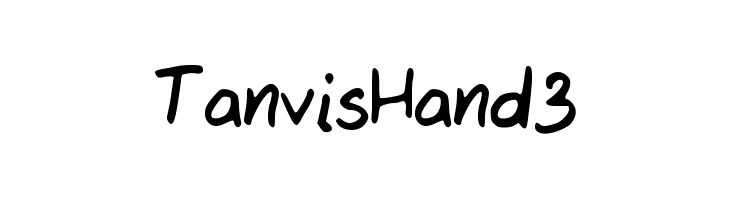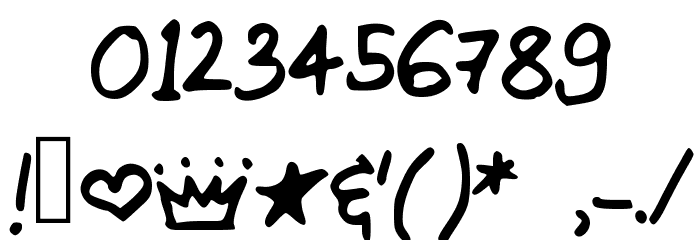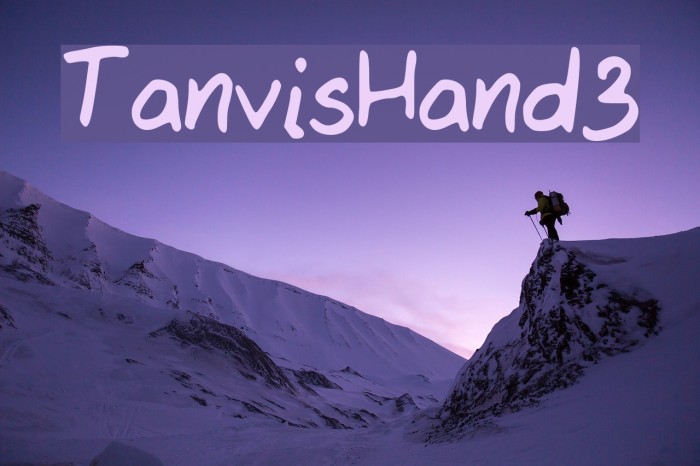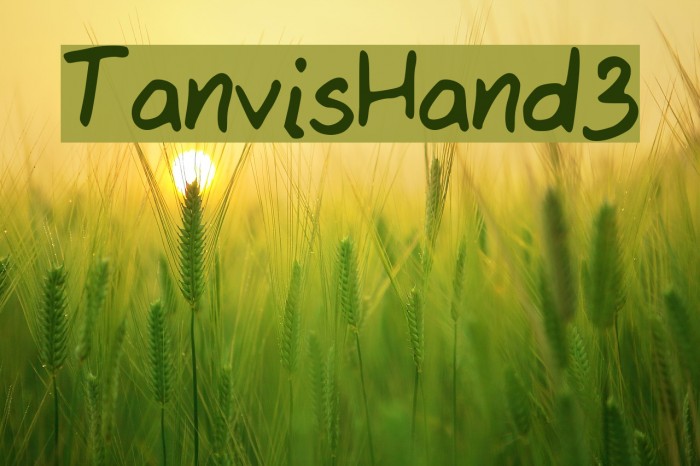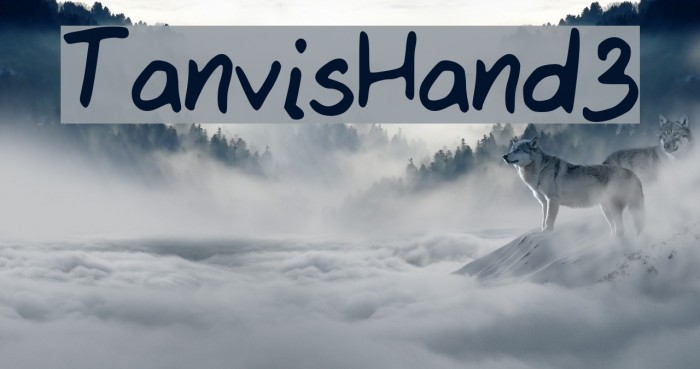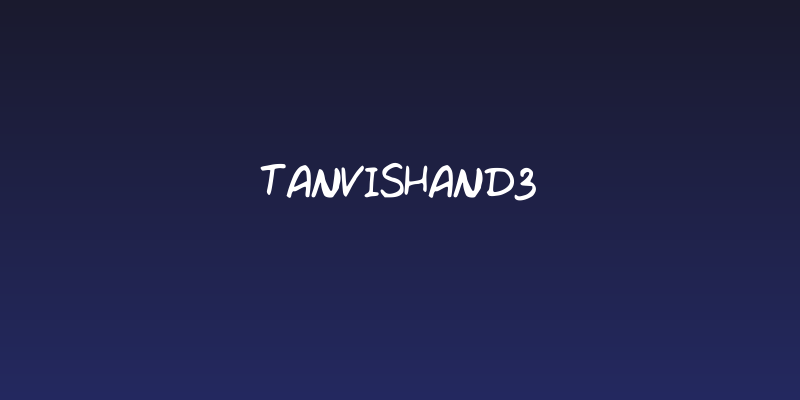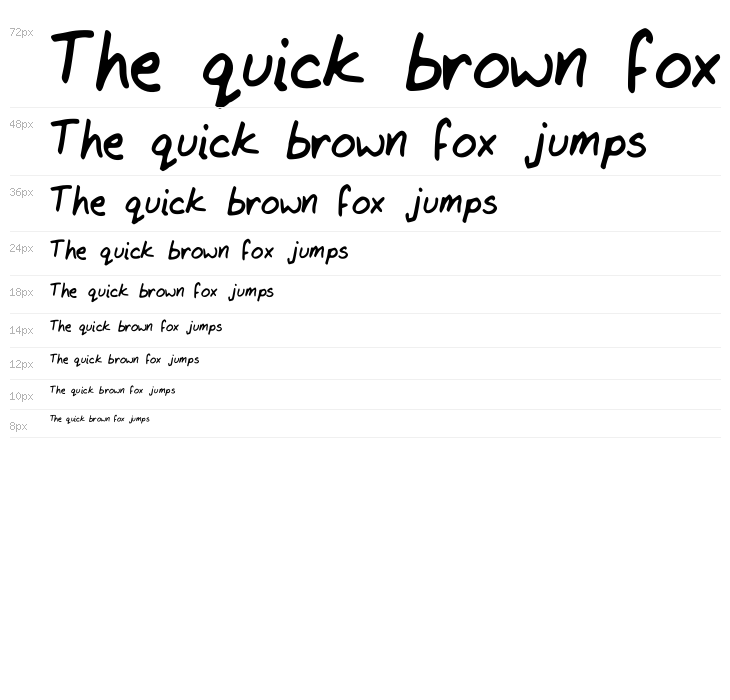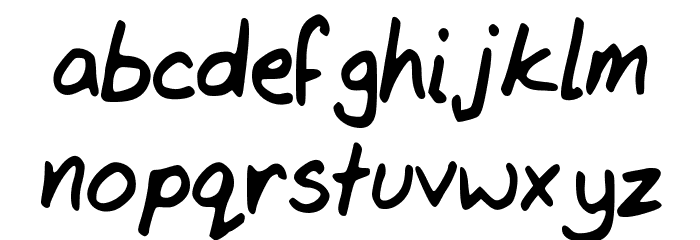
TanvisHand3 Font
TanvisHand3 Description
This font embodies a playful and casual handwritten style, characterized by its smooth, flowing curves and slightly irregular letterforms. The uppercase and lowercase letters maintain a consistent style, with rounded edges and a natural, organic feel. The numerals are bold and clear, matching the overall aesthetic of the alphabet. Special characters are creatively designed, adding a whimsical touch to the font. Its informal appearance makes it ideal for projects that require a personal or friendly tone. The font's legibility is enhanced by its medium contrast and normal character spacing, ensuring readability while maintaining its unique style.